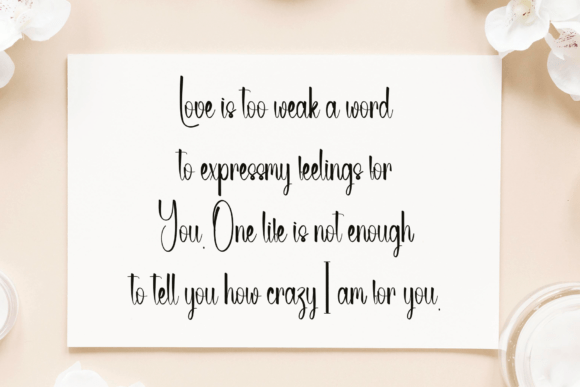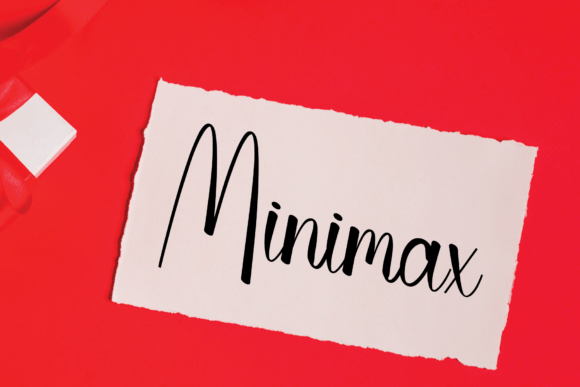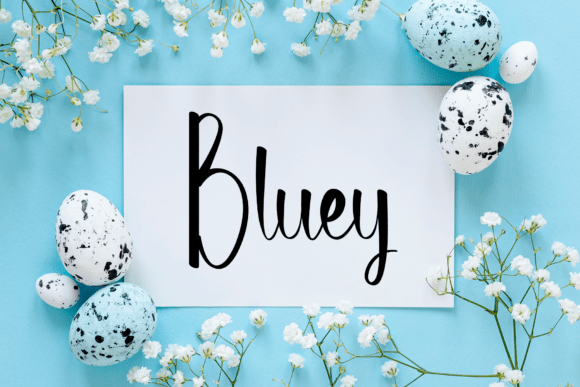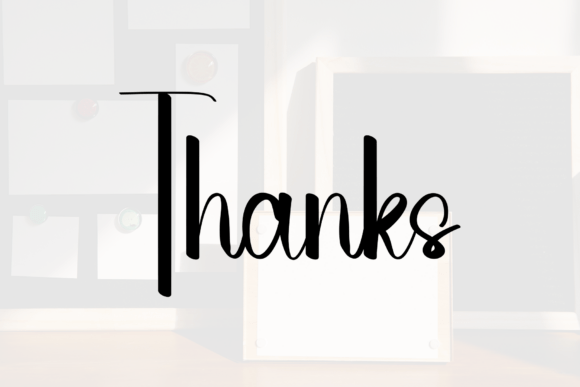
Introduction to Chunky Valentine Font
Have you ever found yourself staring at a blank page, trying to decide on the perfect font to bring your creative project to life? I know I have! As designers, we’ve all been there – searching high and low for that one special font that adds a touch of magic to our work. Well, I’m excited to share with you a hidden gem that’s sure to become a new favorite: the Chunky Valentine Font.
This beautiful handwritten font is a game-changer for designers of all levels. With its playful, chunky characters that dance along the baseline, it’s the perfect addition to any design project. Whether you’re working on a romantic valentine’s day card or a sweet birthday invitation, this font is sure to add a touch of whimsy and personality to your design.
Key Features of Chunky Valentine Font
- Unique, bold, and playful design perfect for creative projects and romantic themes.
- Includes a wide range of characters, including uppercase and lowercase letters, numbers, and special symbols.
- Perfect for use in digital and print media, including social media graphics, posters, and greeting cards.
Honest Review: Chunky Valentine Font
As a designer, I was excited to dive into the Chunky Valentine Font for my latest creative project. I’ve been searching for a unique design resource to give my work a personal touch, and this font seemed like the perfect fit.
What works well is the font’s high quality and versatility. It’s a great option for any project that needs a touch of whimsy and romance. I love how it can be used for both digital and print designs, from social media graphics to invitations and cards.
Here are some of my favorite features:
- Perfect for creative projects that need a touch of personality and flair
Overall, I’m impressed with the Chunky Valentine Font. Its unique design and high-quality rendering make it a great addition to any designer’s toolkit. With a little creativity, this font can elevate even the simplest design into something truly special. ✨
To get the most out of the Chunky Valentine Font, use it on a transparent background to add a touch of elegance to your designs.
Also, experiment with different font sizes and styles to create a unique look for your creative project.
Common Use Cases for Chunky Valentine Font
The Chunky Valentine Font is ideal for:
Valentine’s Day designs and projects.
Wedding invitations and stationery.
Love-themed posters and social media graphics.